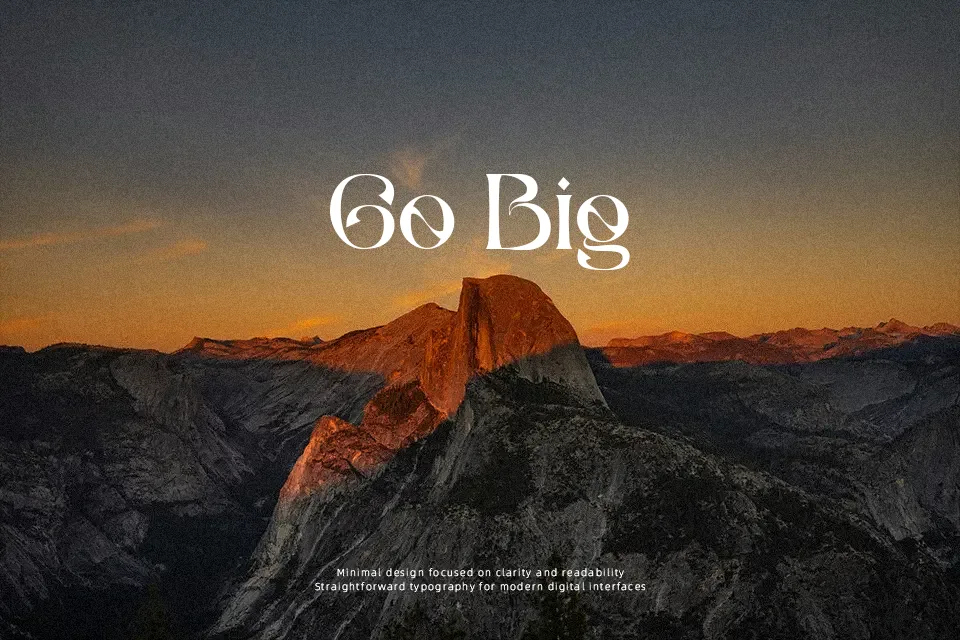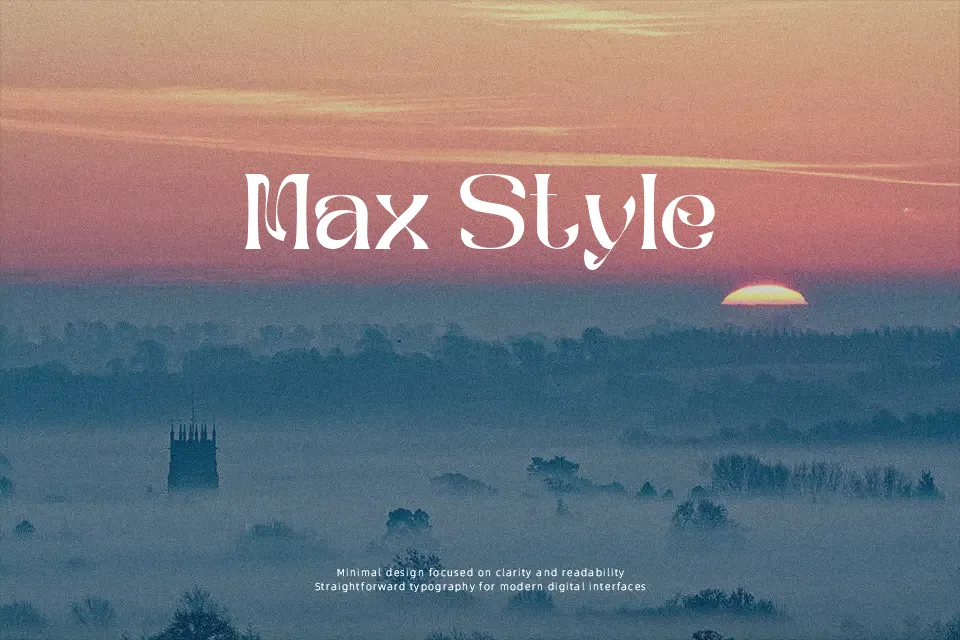
The Bafger Font
Distinctive curvature and flared terminal details give The Bafger Font an immediate vintage presence suited for prominent display settings. The letterforms combine moderate proportions with pronounced stroke contrast, creating an eye-catching visual cadence across title settings. Balanced spacing keeps headline text legible, though decorative details become less effective at smaller sizes. The font works reliably for packaging, merchandise graphics, and editorial covers. Continuous reading comfort decreases in dense text blocks, making the typeface less suitable for long paragraphs.
Best For: vintage product packaging, music festival posters, apparel graphics, retro restaurant signage
Not Ideal For: long paragraph text, mobile app body copy, dense editorial layouts, spreadsheet data